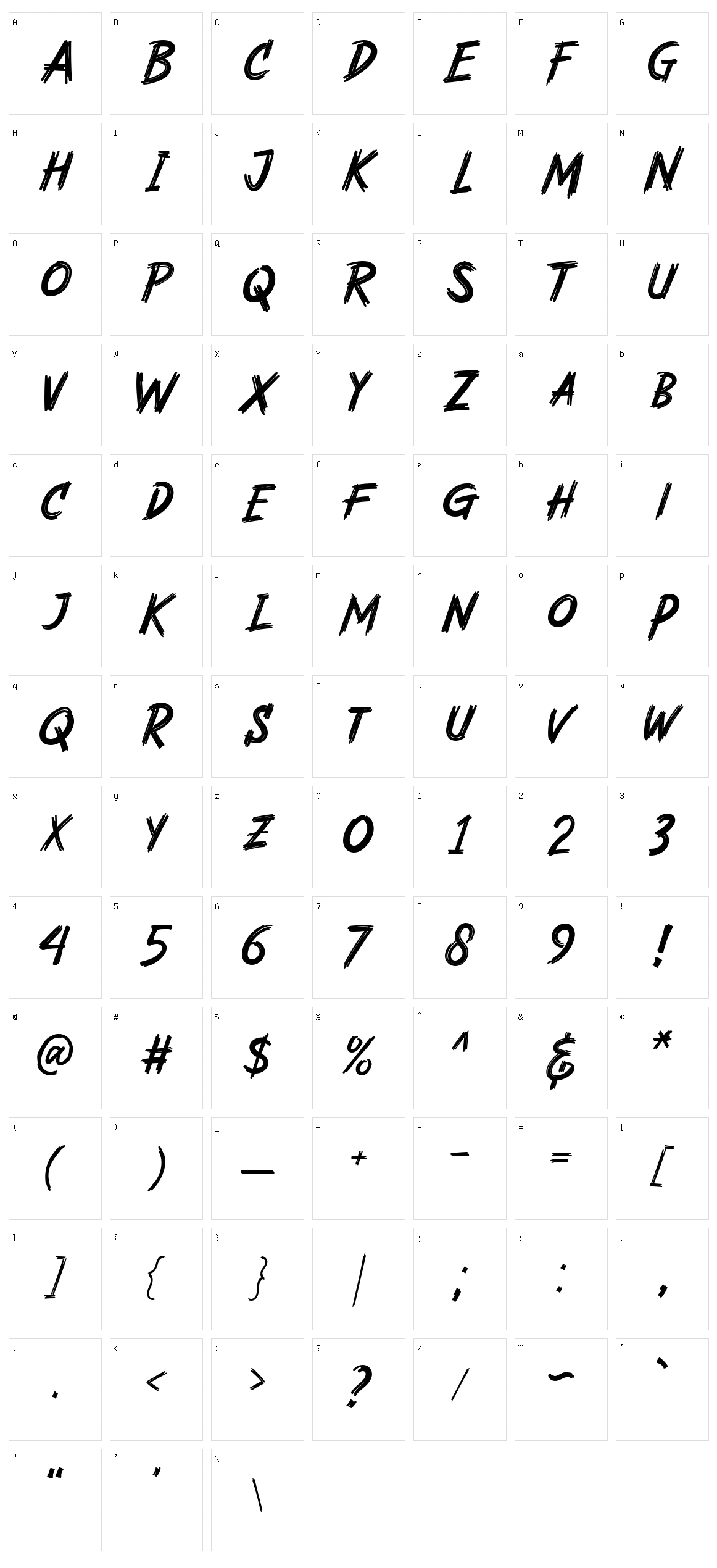
The free font Rashkey is carefully designed by Arterfak Project, showcasing a thoughtful balance of creativity and usability and falls under the Script font style. When you download the ZIP file, it contains only 128.52 KB of font files, making it lightweight and quick to download. Please review the license details below to understand permitted usage and distribution rights. If license information is not available, we recommend using this font for personal projects only or contacting the author directly for commercial usage permissions.